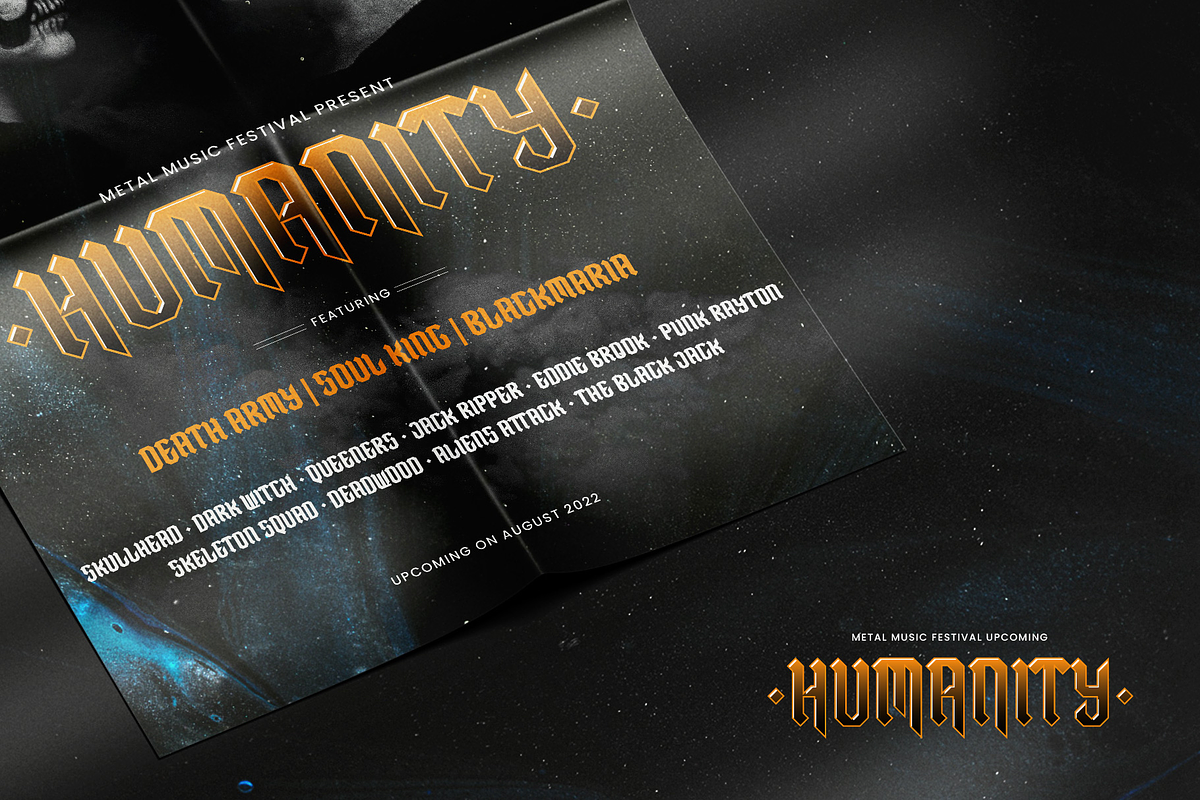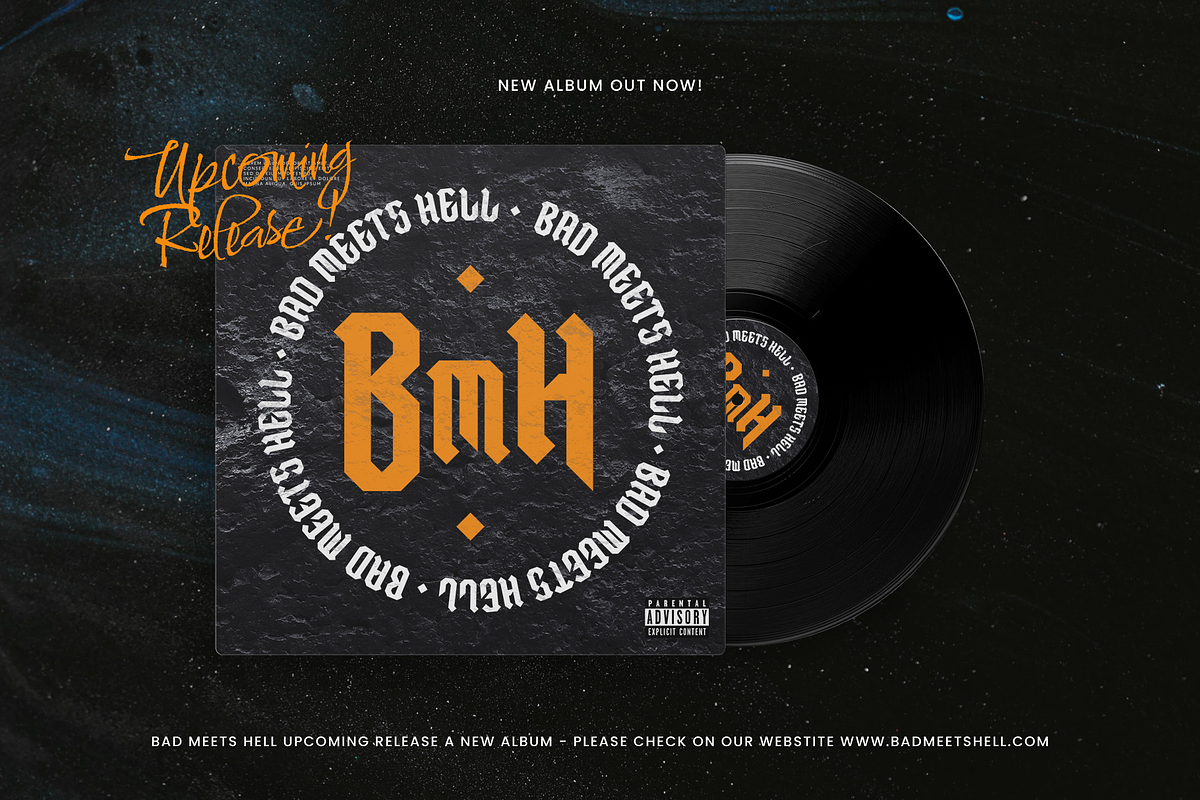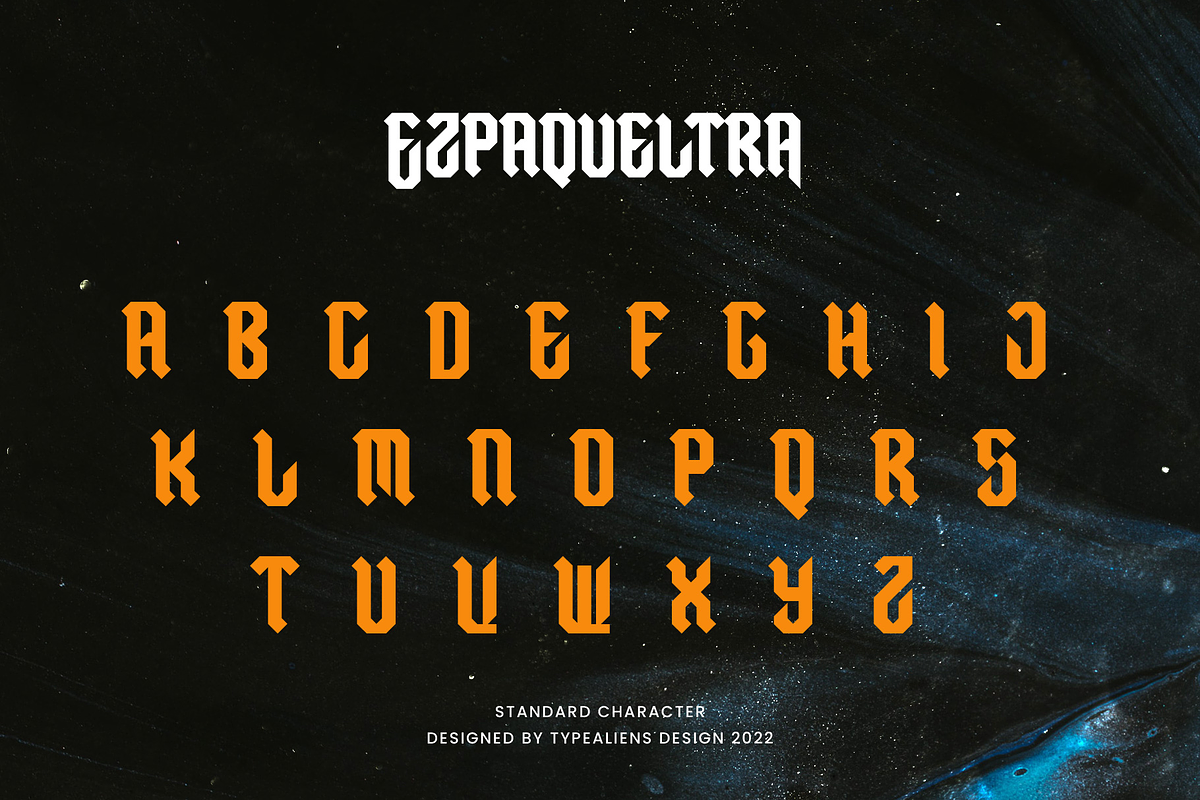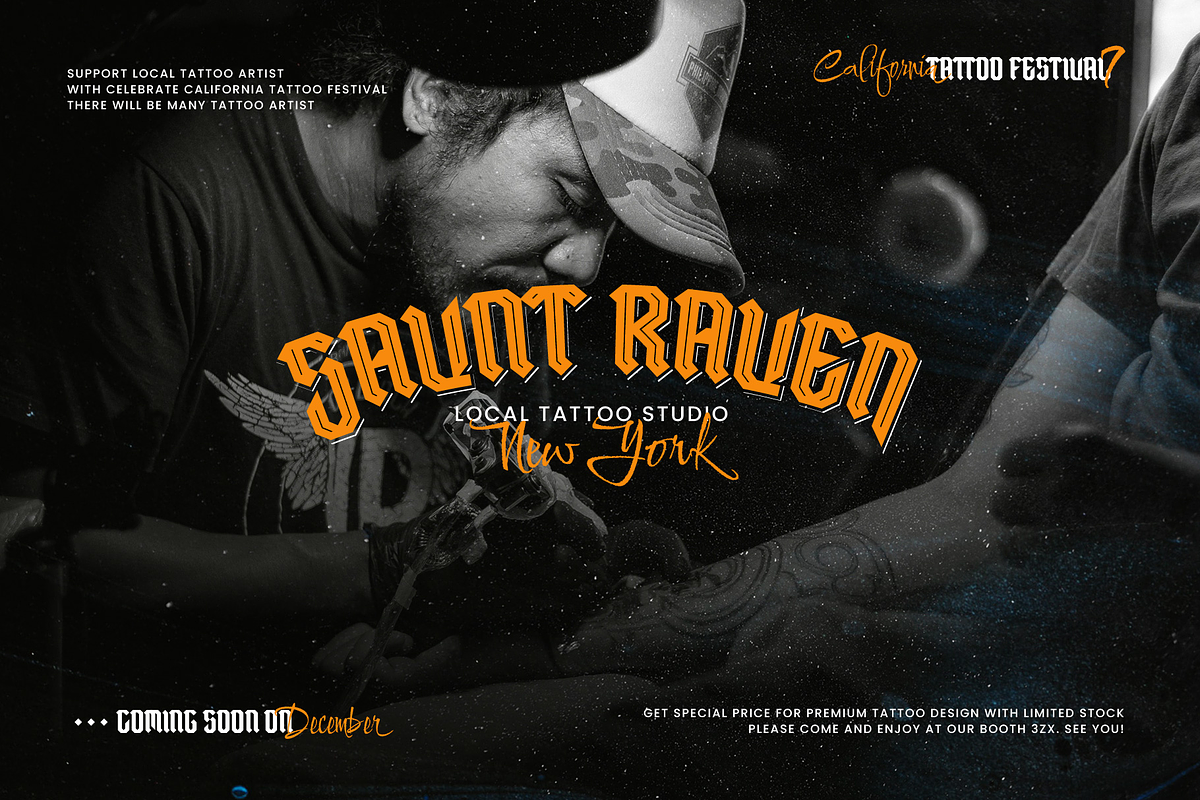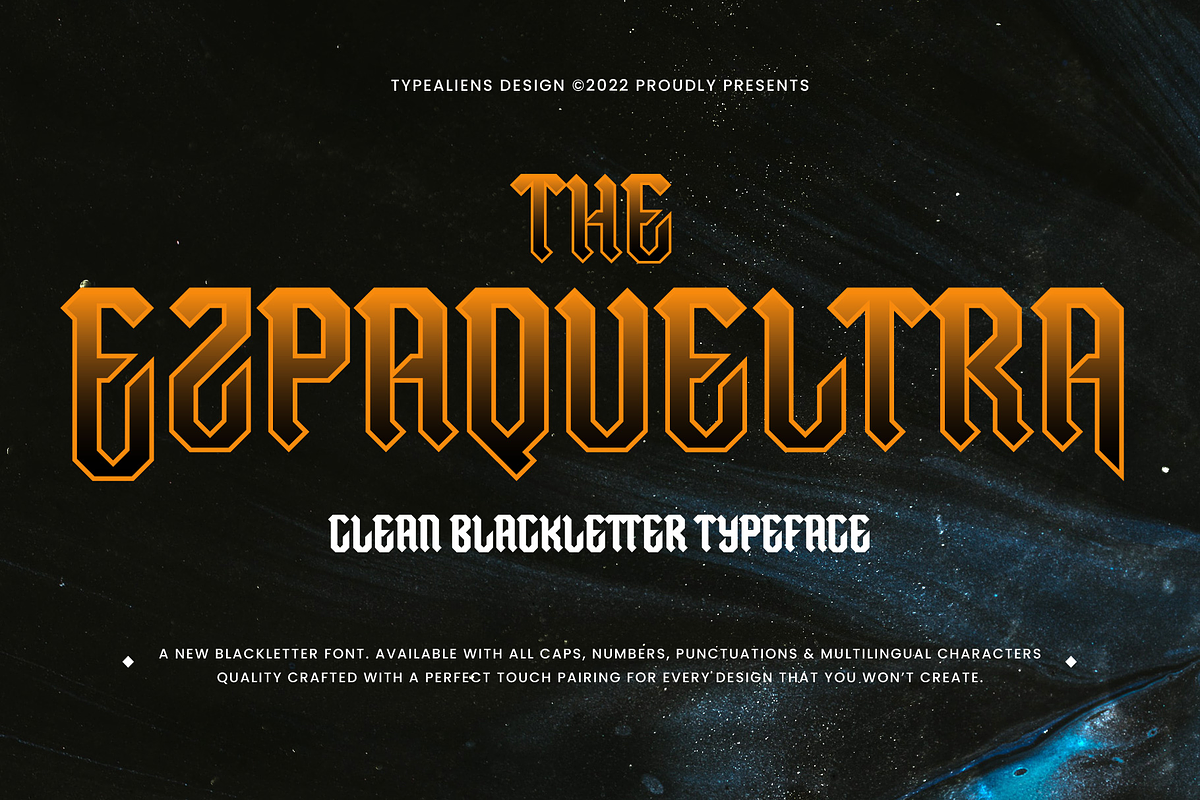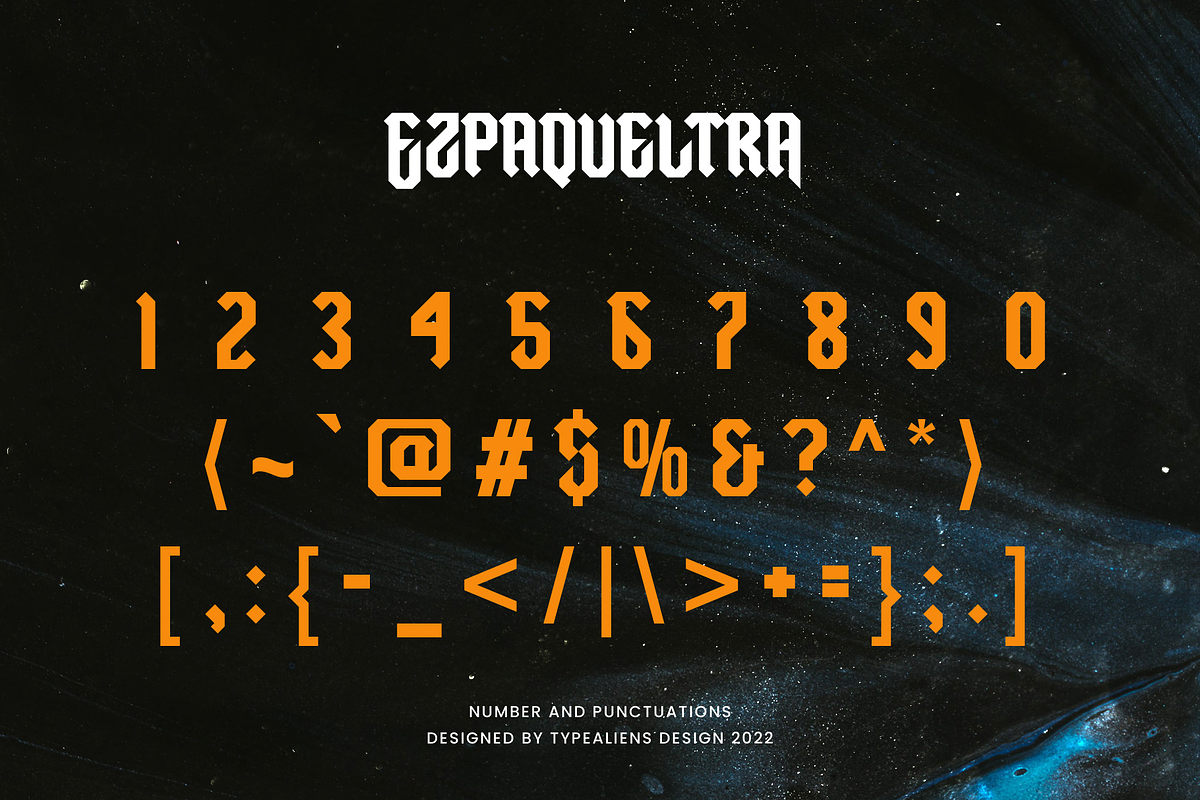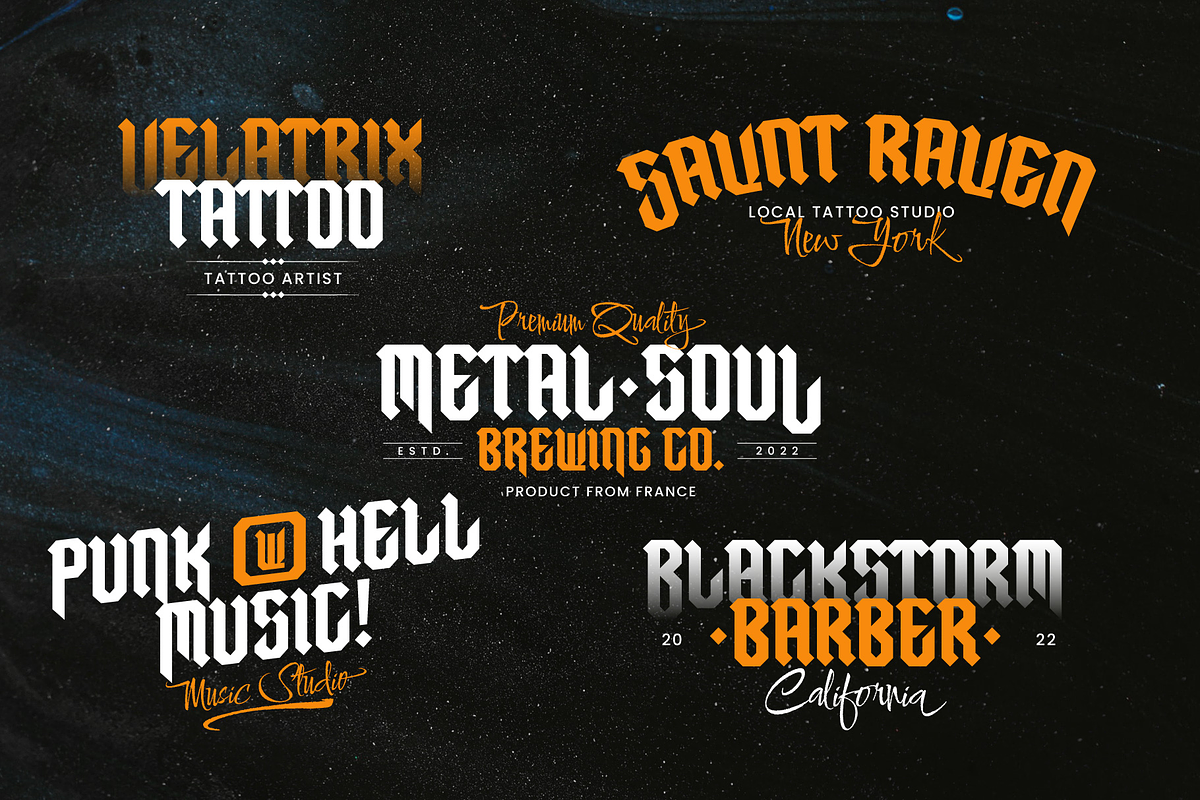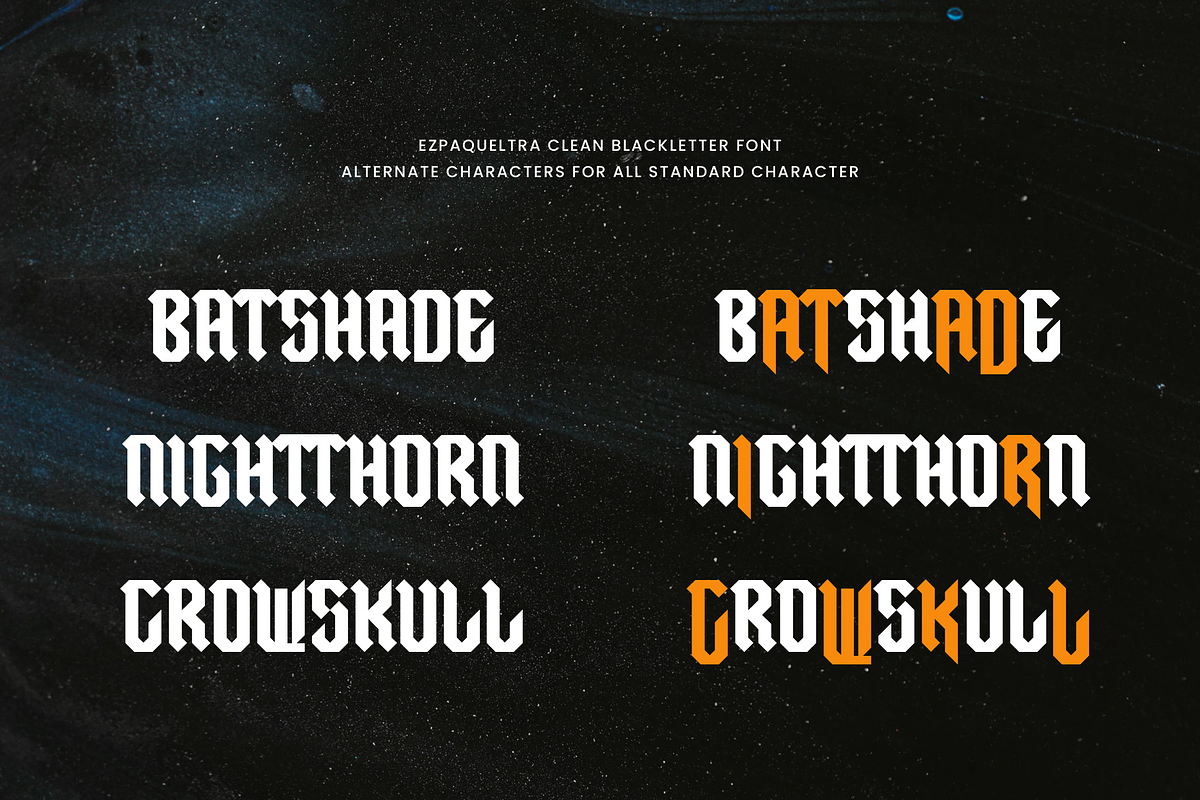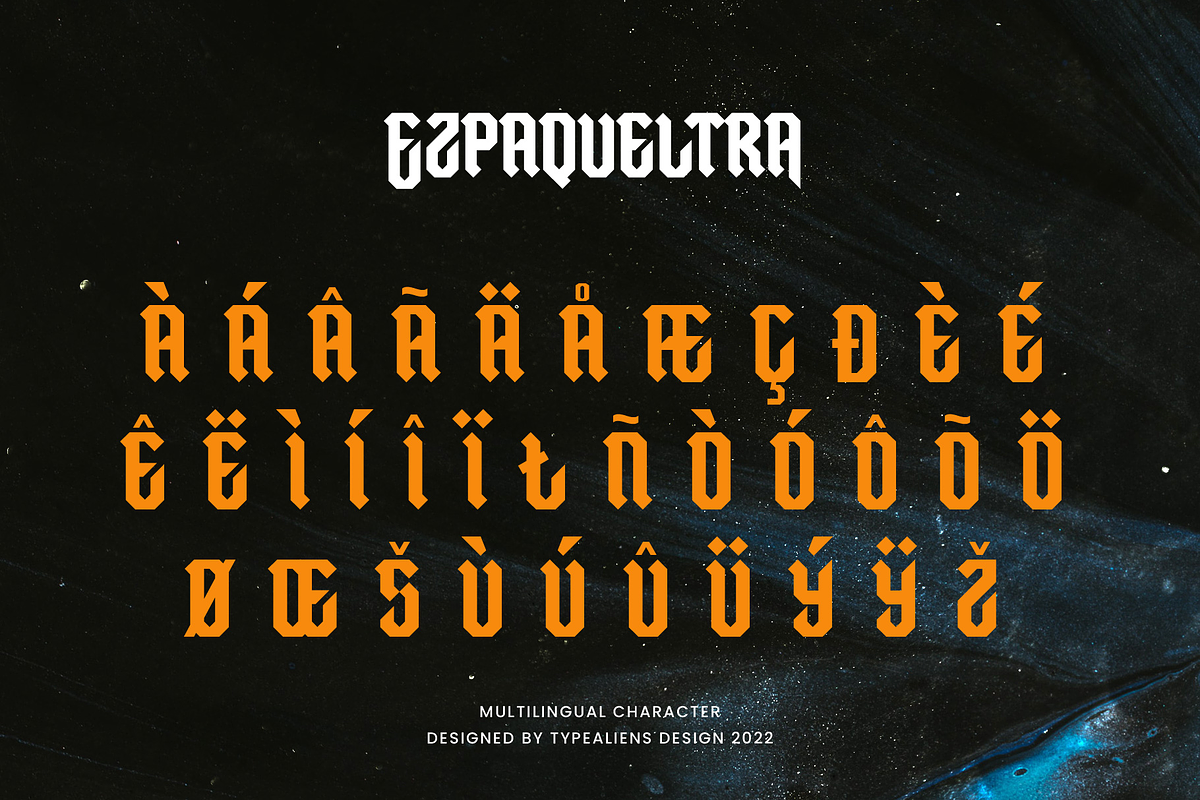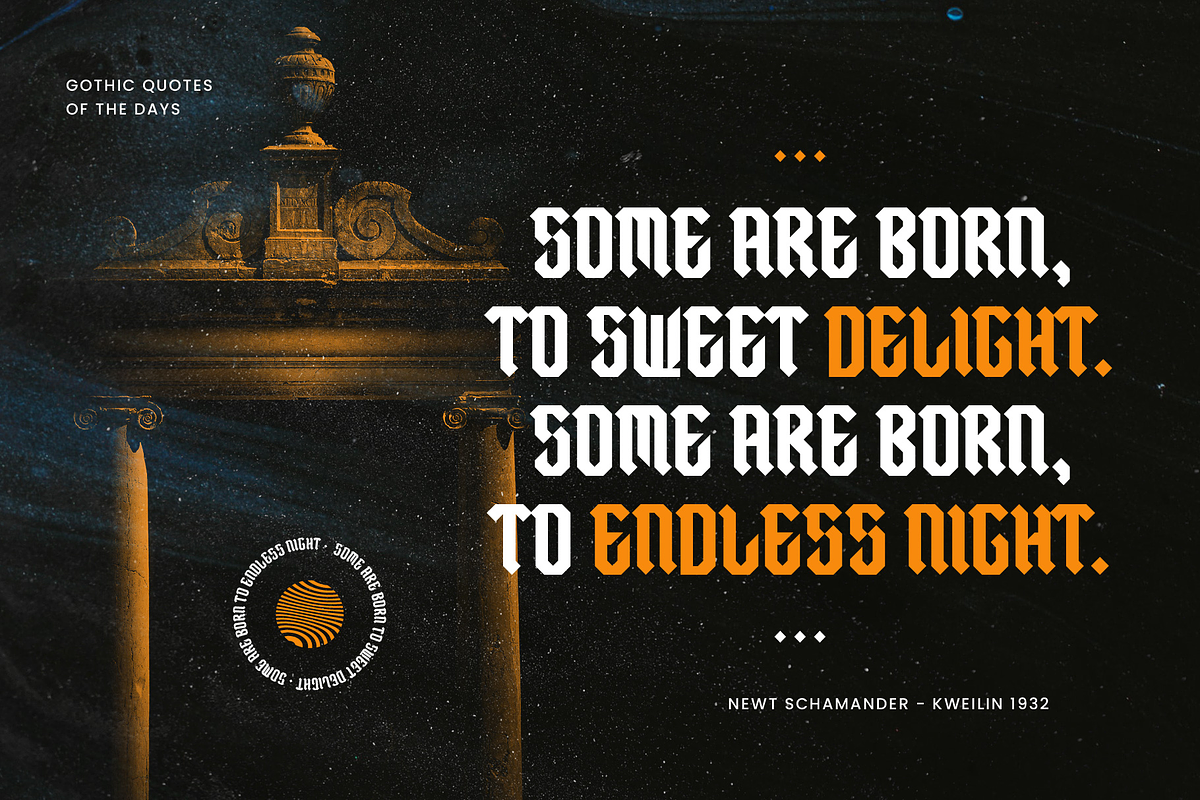
Ezpaqueltra
EZPAQUELTRA
Ezpaqueltra is a font that is actually a simplified blackletter to make it cleaner and simpler, the goal is to refine it from the actual blackletter to make it easier to read, apart from being more modern because it is clean this font does not rule out the possibility for vintage designs. And this font is the all caps font that distinguishes it from the previous blackletter.